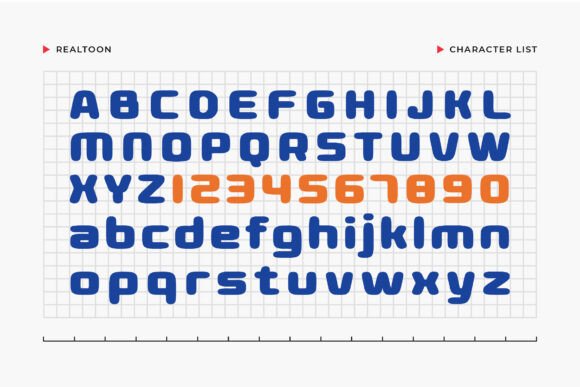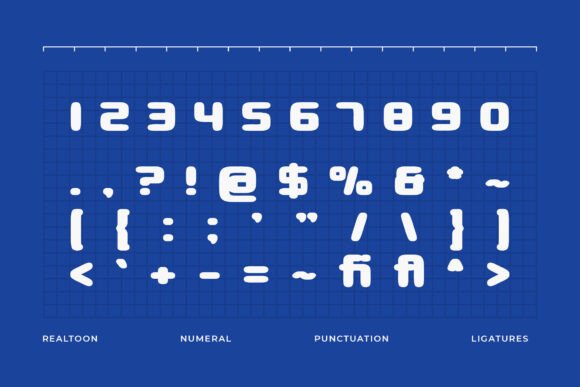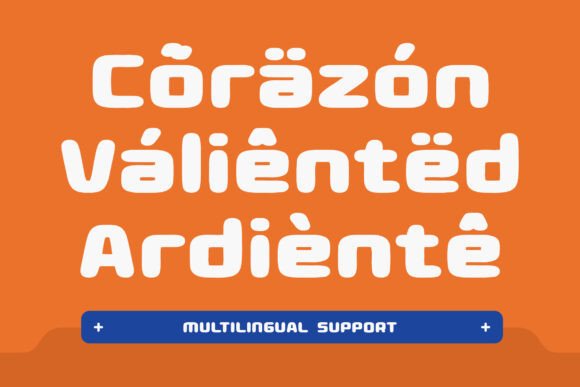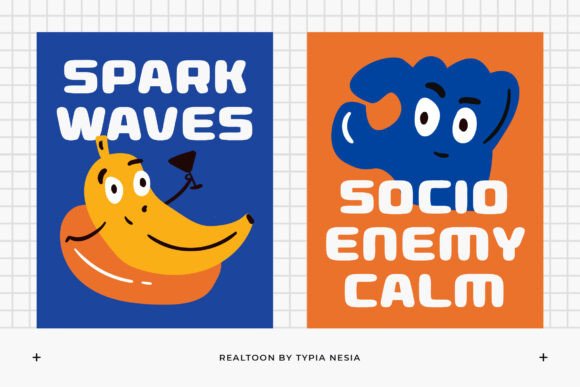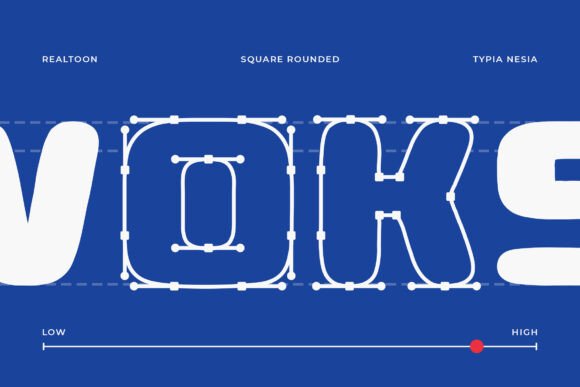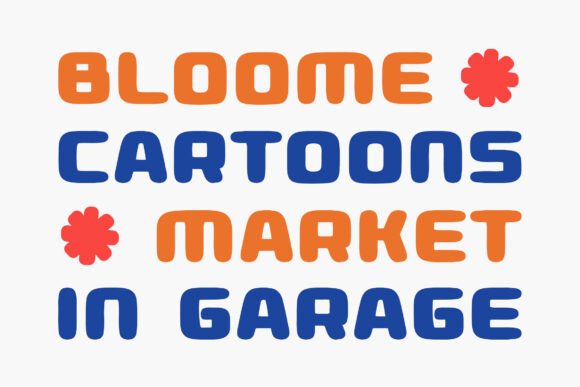
Introduction to Realtoon Font
As a designer, there’s nothing quite like the thrill of bringing a creative project to life. You spend hours brainstorming ideas, experimenting with different colors, and testing typography – all in the hopes of creating something truly special. And then, it happens – you stumble upon the perfect font, one that perfectly captures the essence of your vision. For many designers, that font is the Realtoon Font, a Square Bold Sans Serif Font that combines bold geometric shapes with a modern, fun, and cartoon-inspired vibe.
But what makes Realtoon Font so valuable for designers? For starters, it’s incredibly versatile, making it perfect for a wide range of creative projects, from children’s books to social media content. Its high-quality design ensures that it looks great on any background, whether it’s a transparent background or a bold, eye-catching design. And the best part? It’s available for free download, making it an invaluable resource for any designer looking to add a touch of fun and playfulness to their designs.
Key Features of Realtoon Font
- High-quality, vector-based font suitable for creative projects, offering a unique and playful touch.
- Designed with a bold and modern aesthetic, perfect for adding a touch of personality to your designs.
- Perfect for use in digital and print-based designs, including logos, icons, and graphics.
Honest Review: Realtoon Font
I recently had the chance to work with the Realtoon Font, and I must say it’s been a game-changer for my creative projects. The high quality of this font is evident in its sleek and modern design, making it perfect for a variety of projects, from logos to graphics.
One of the things that stood out to me was the transparent background feature, which allows for seamless integration with other design elements. This has been a lifesaver for my design workflow, and I appreciate the thought that went into creating a font that’s so versatile.
Here are some of the key features that I love about the Realtoon Font:
- ✨ High quality and modern design
- ✨ Great design resource for logos, graphics, and more
That being said, I do have a few minor complaints about the Realtoon Font. For example, the font can be a bit difficult to read at smaller sizes, and the selection of weights and styles could be expanded.
Overall, I’m thoroughly impressed with the Realtoon Font, and I would highly recommend it to designers looking for a high-quality, creative resource. While it’s not perfect, the benefits far outweigh the limitations, and I’m excited to see where this font takes my design projects in the future.
The Realtoon Font is commonly used in graphic design, digital art, and creative projects. It’s also a popular choice for designers who want to add a touch of whimsy and personality to their designs.